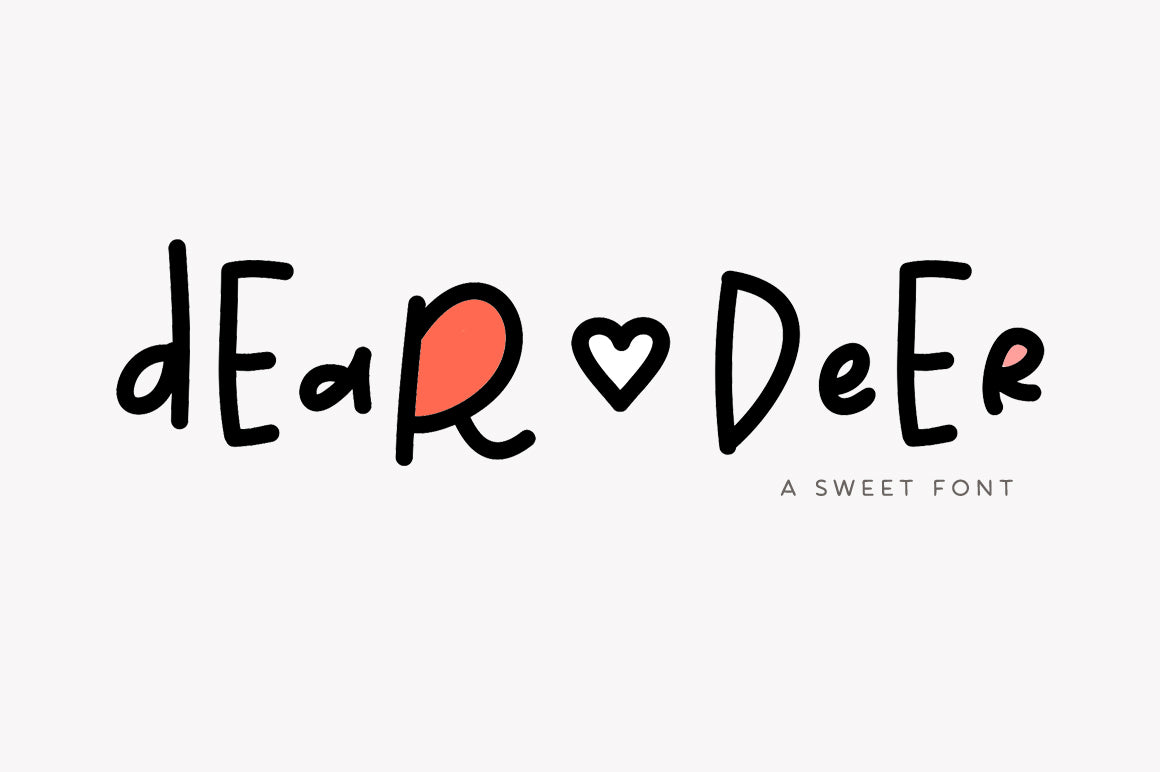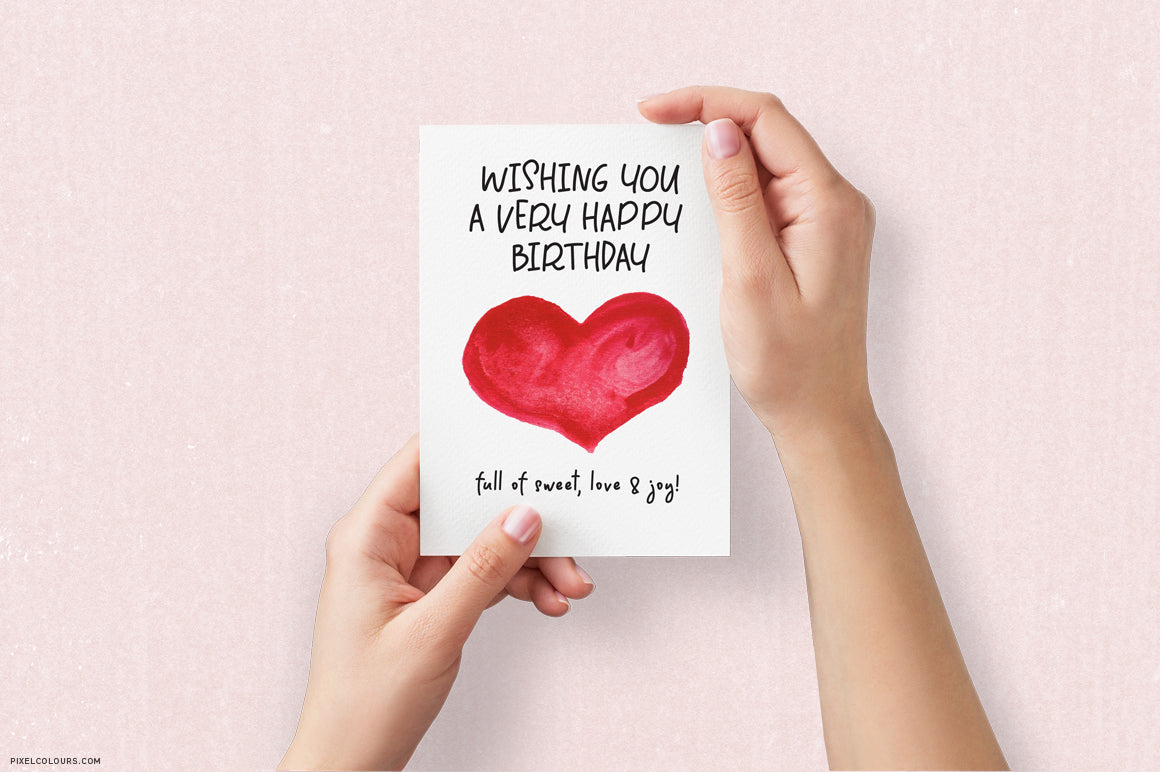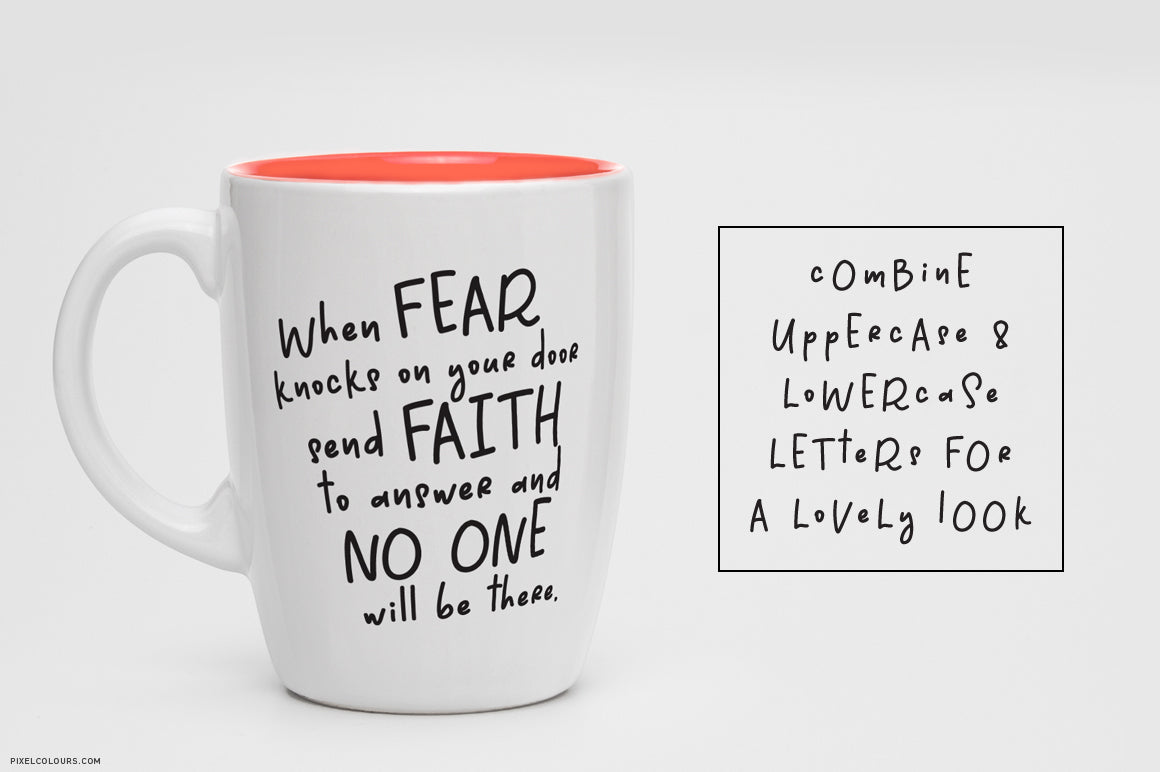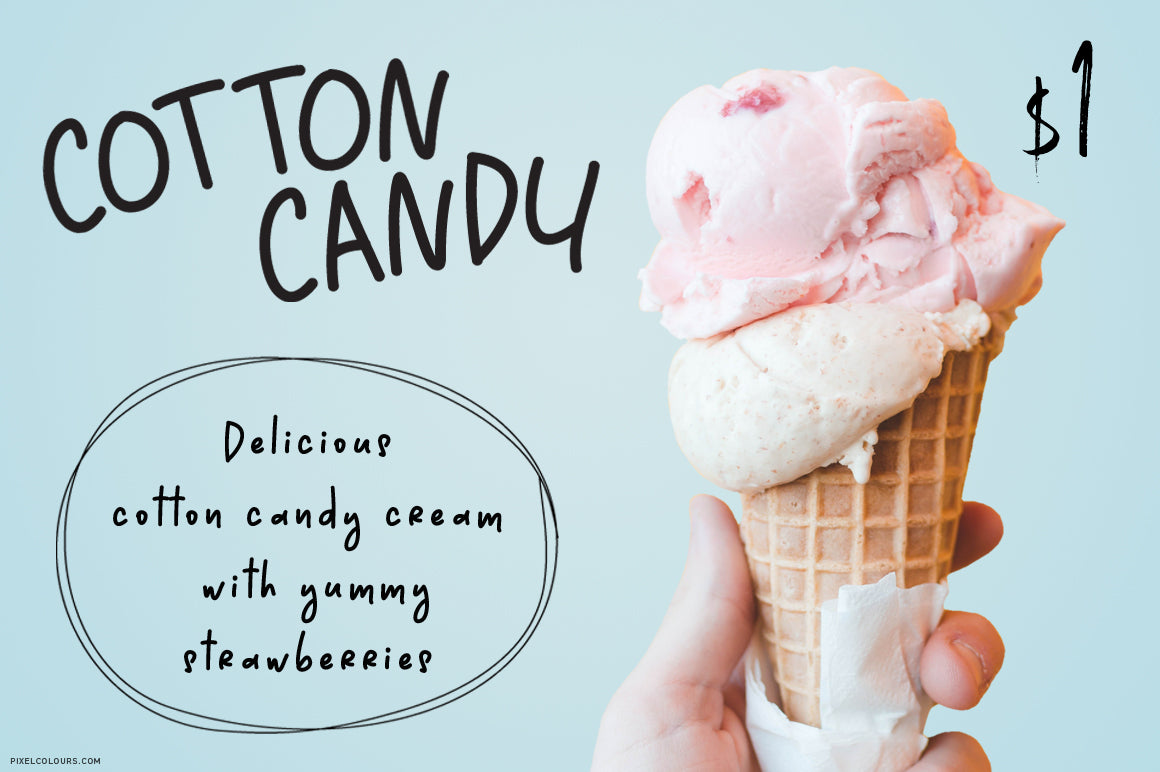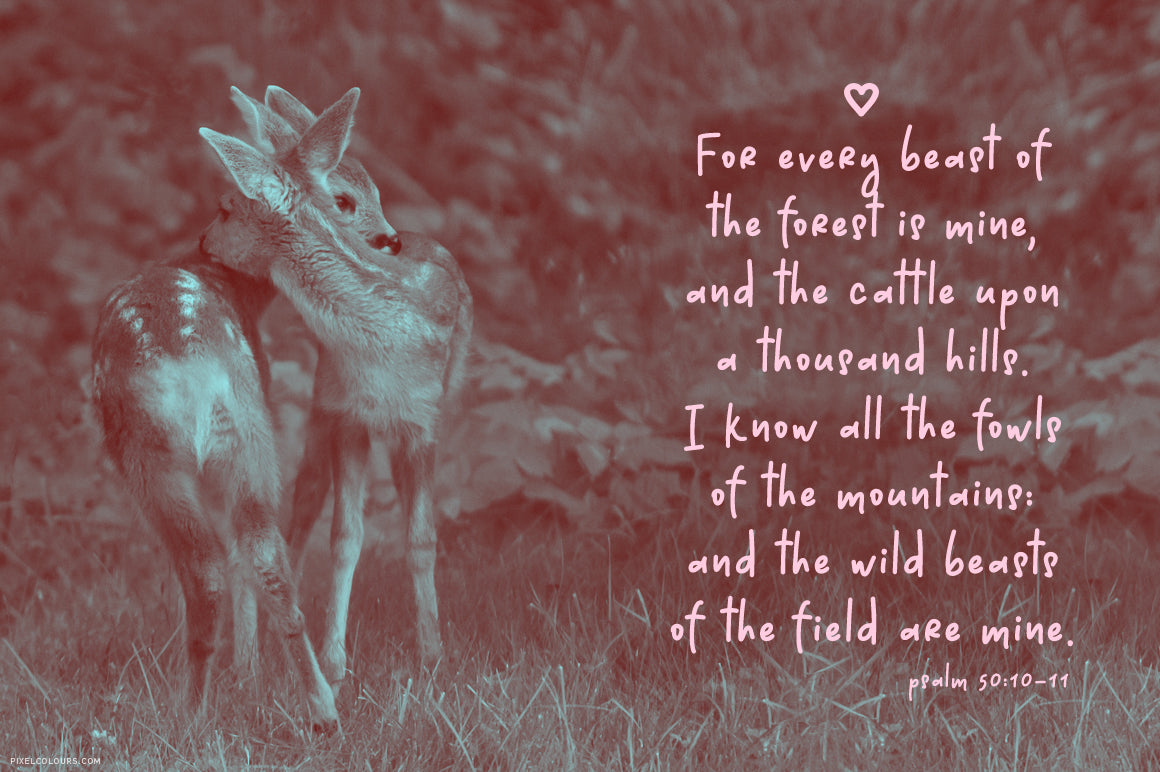
Dear Deer Font
Dear Deer is a handwritten font crafted to seamlessly blend uppercase and lowercase letters, creating a sweet look. With its smooth flow and personal touch, this playful font is ideal for projects that need warmth and authenticity. Whether you're designing for print or digital, Dear Deer is a design resource that adds a soft, handwritten feel to your work.
Ideas for use
- Wedding invitations or thank you cards
- Quotes for social media or wall art
- Personalized branding or packaging
- Journals, planners, and printable stationery
- Greeting cards, stickers, or labels